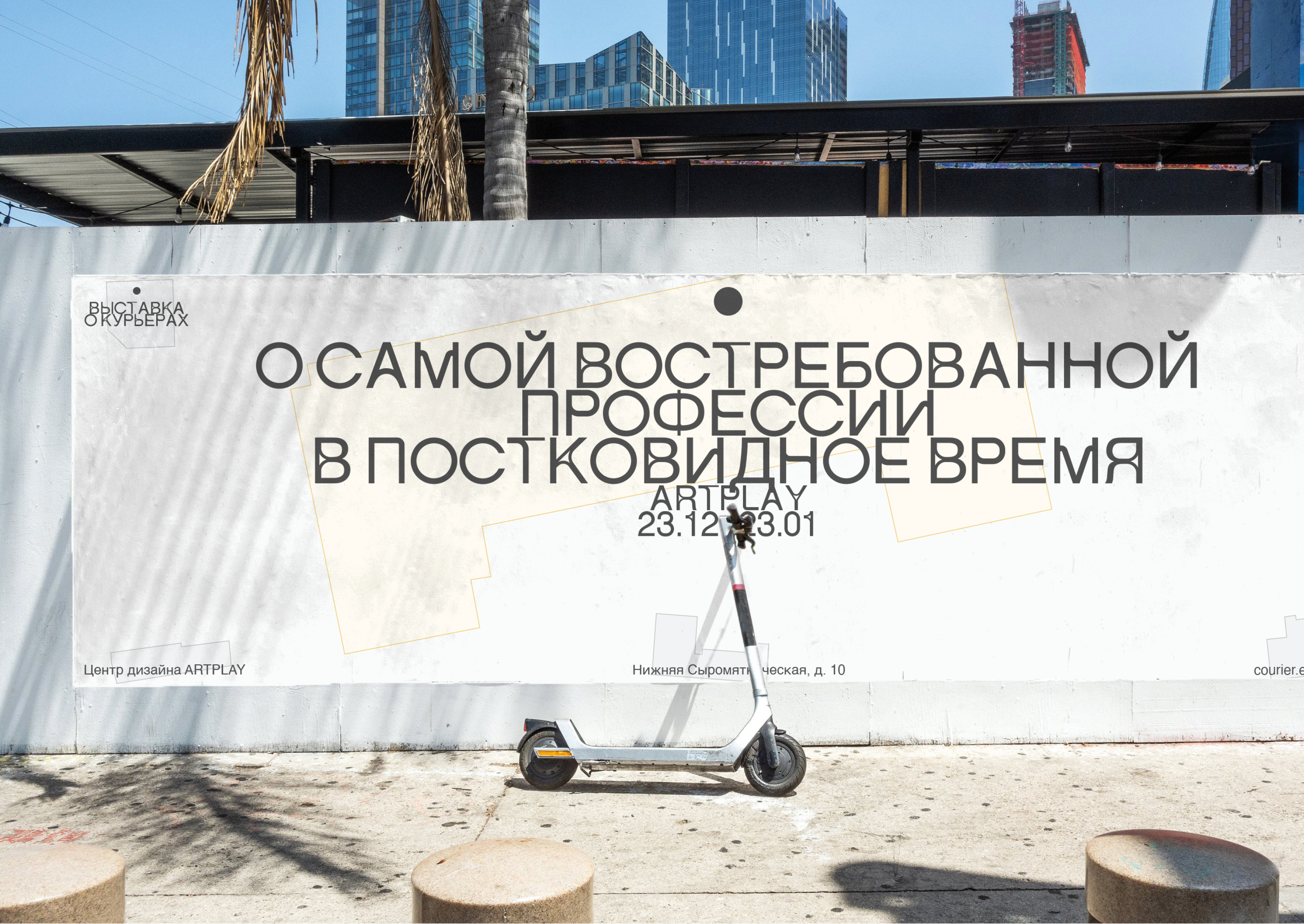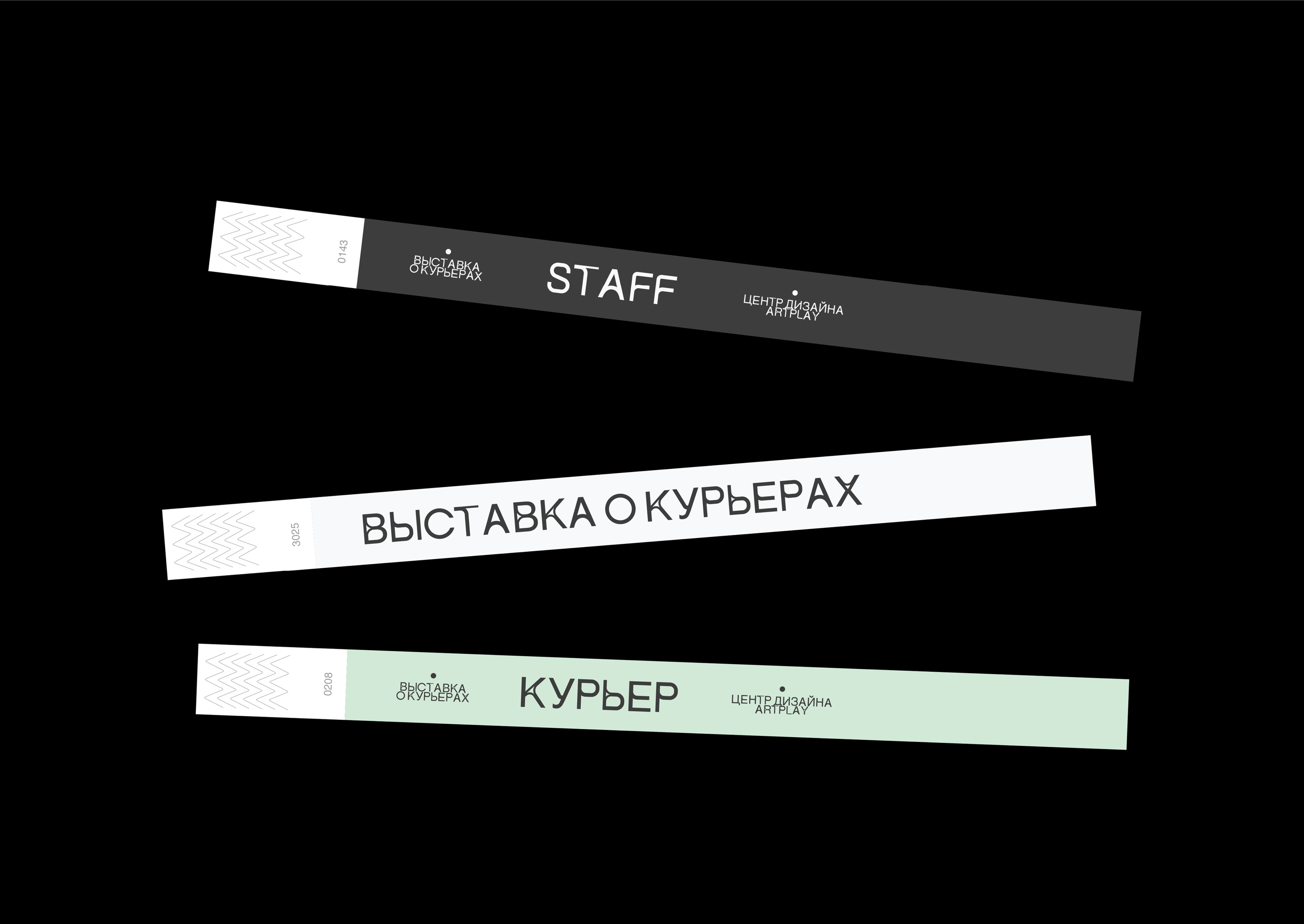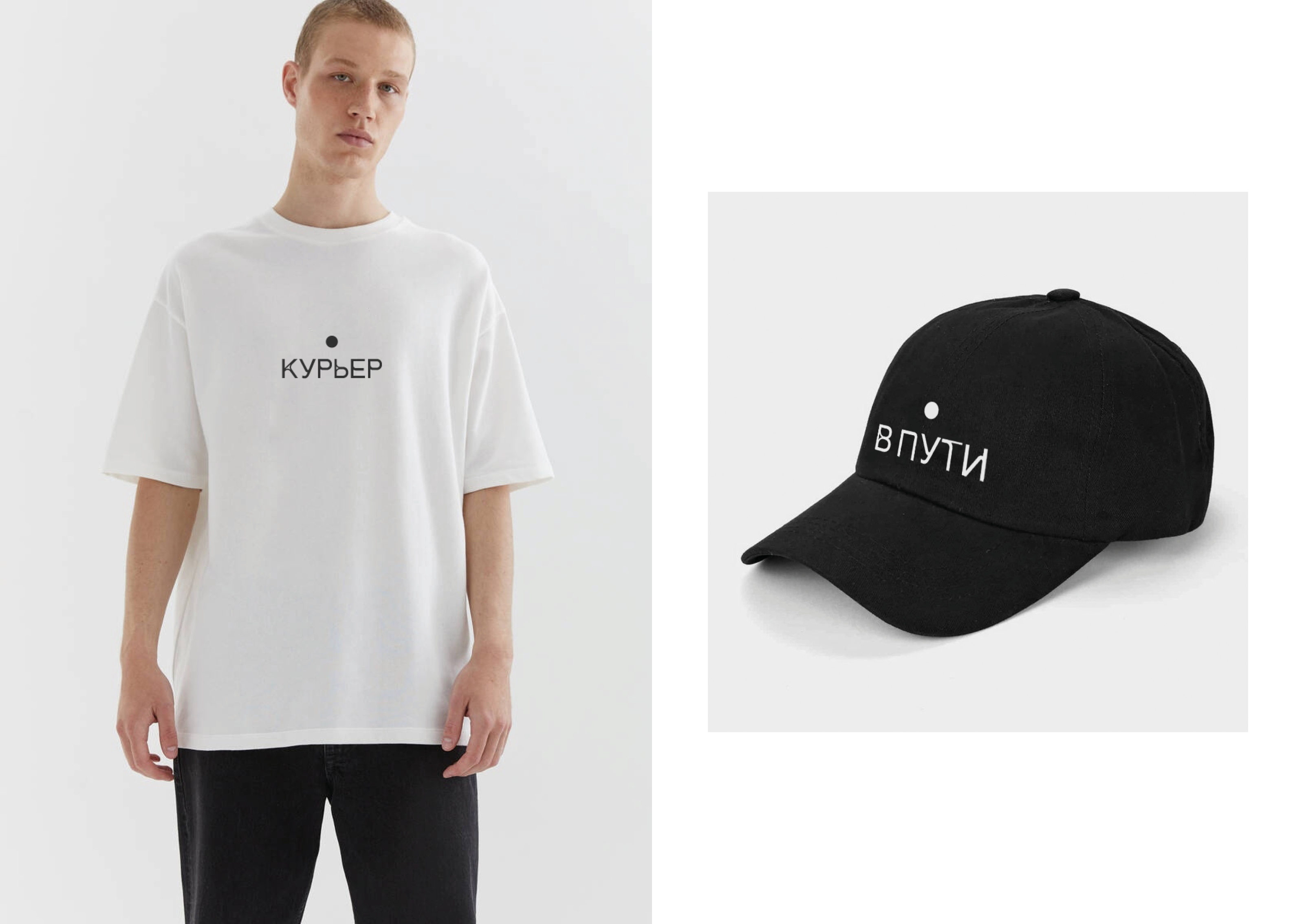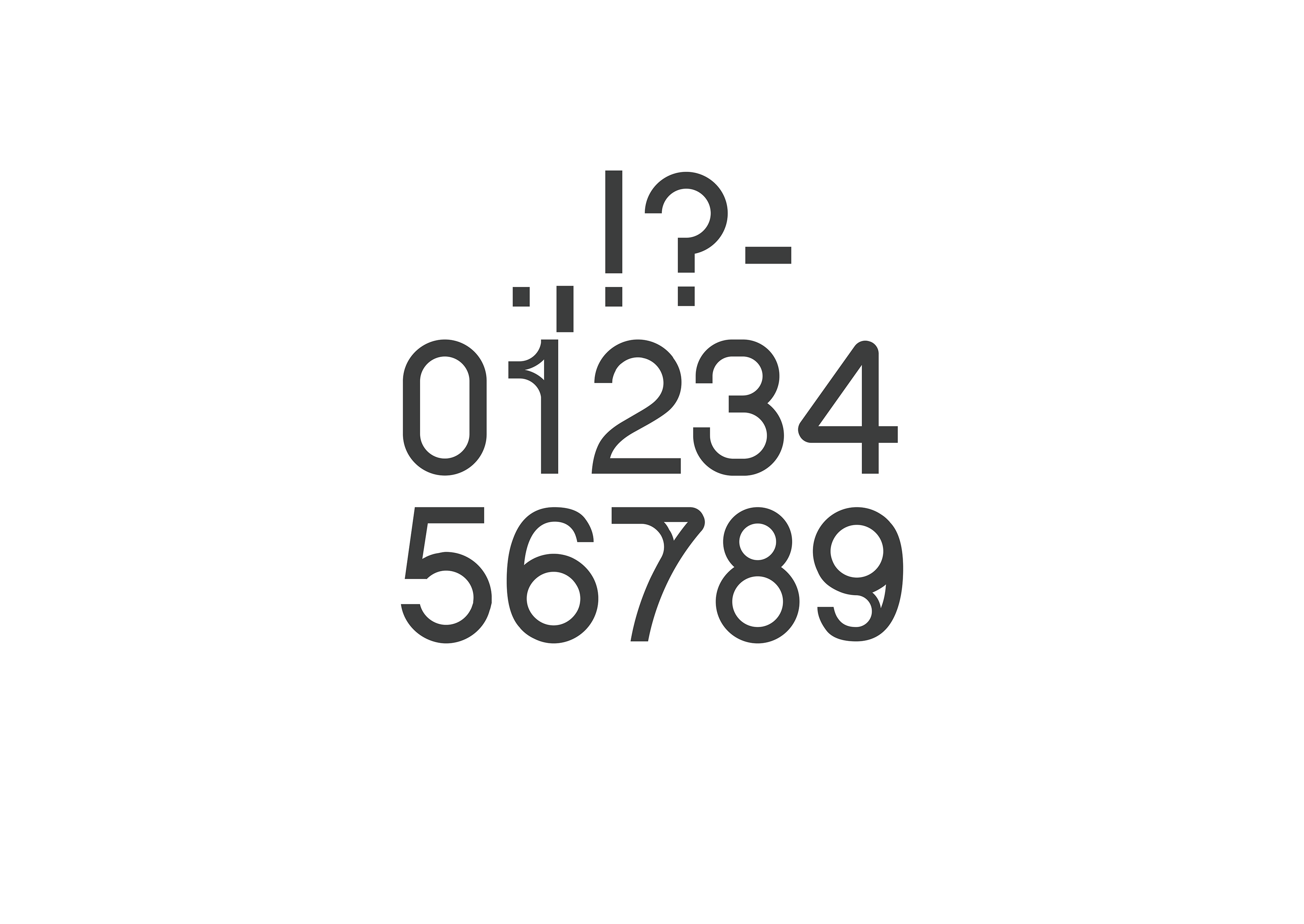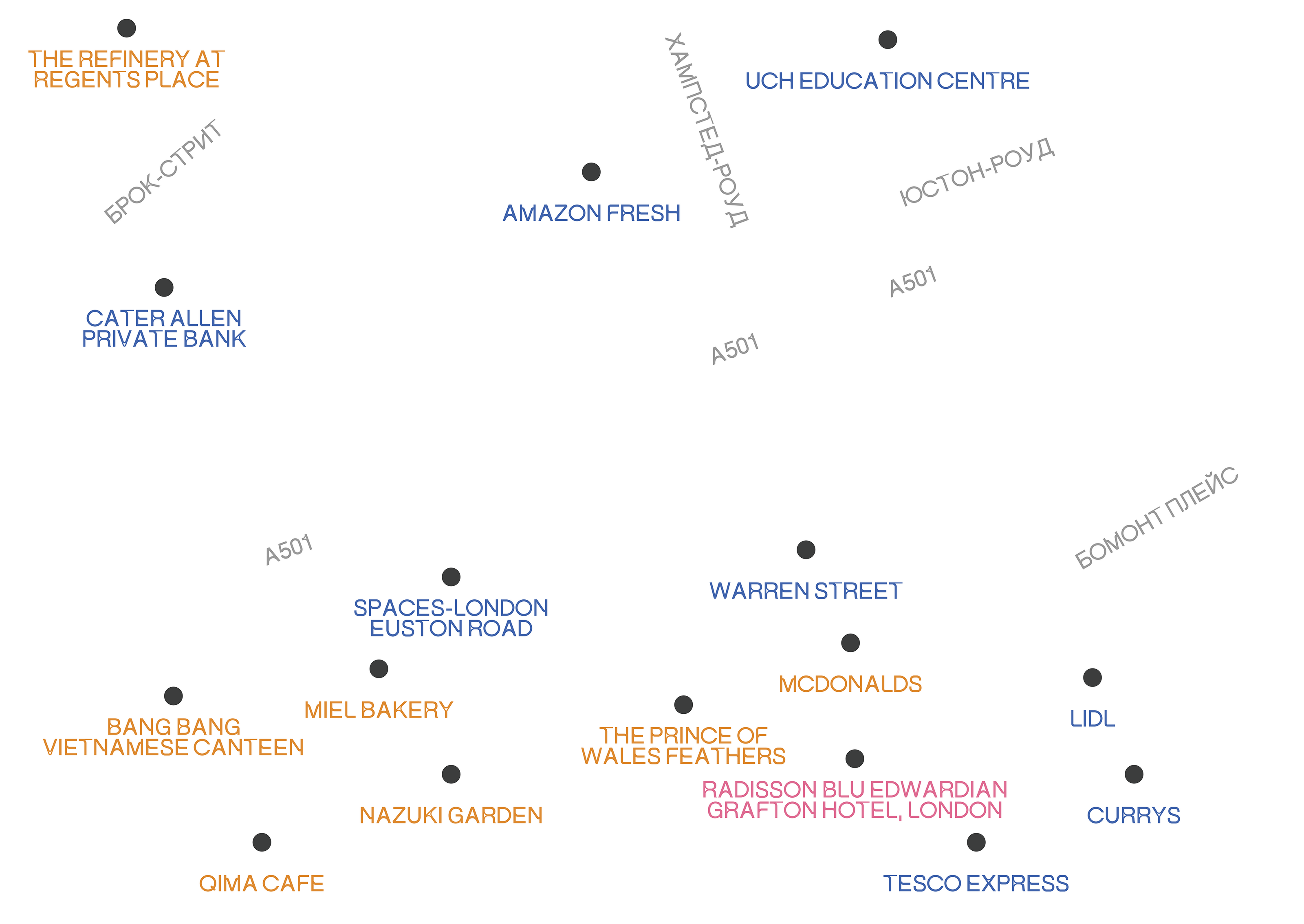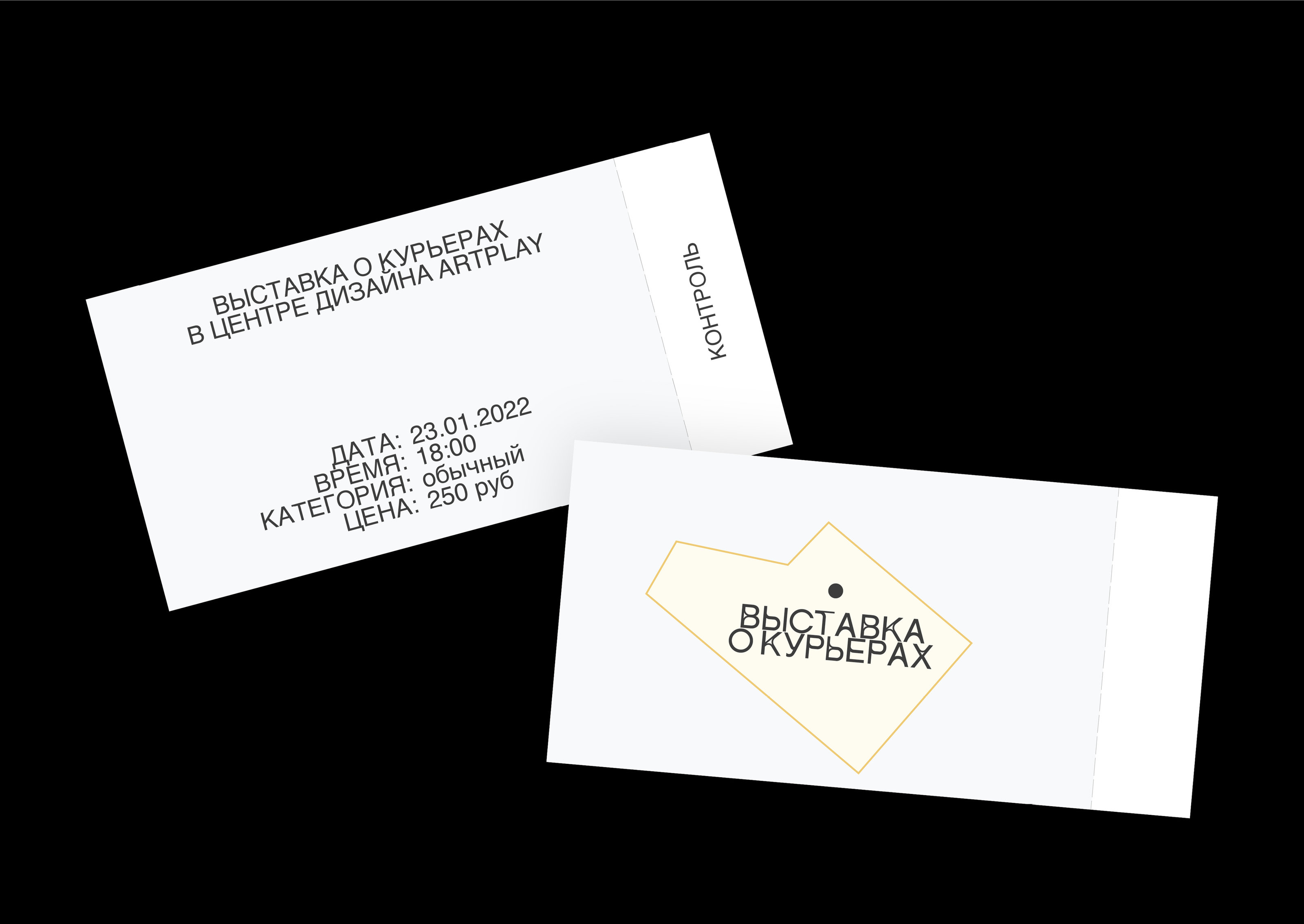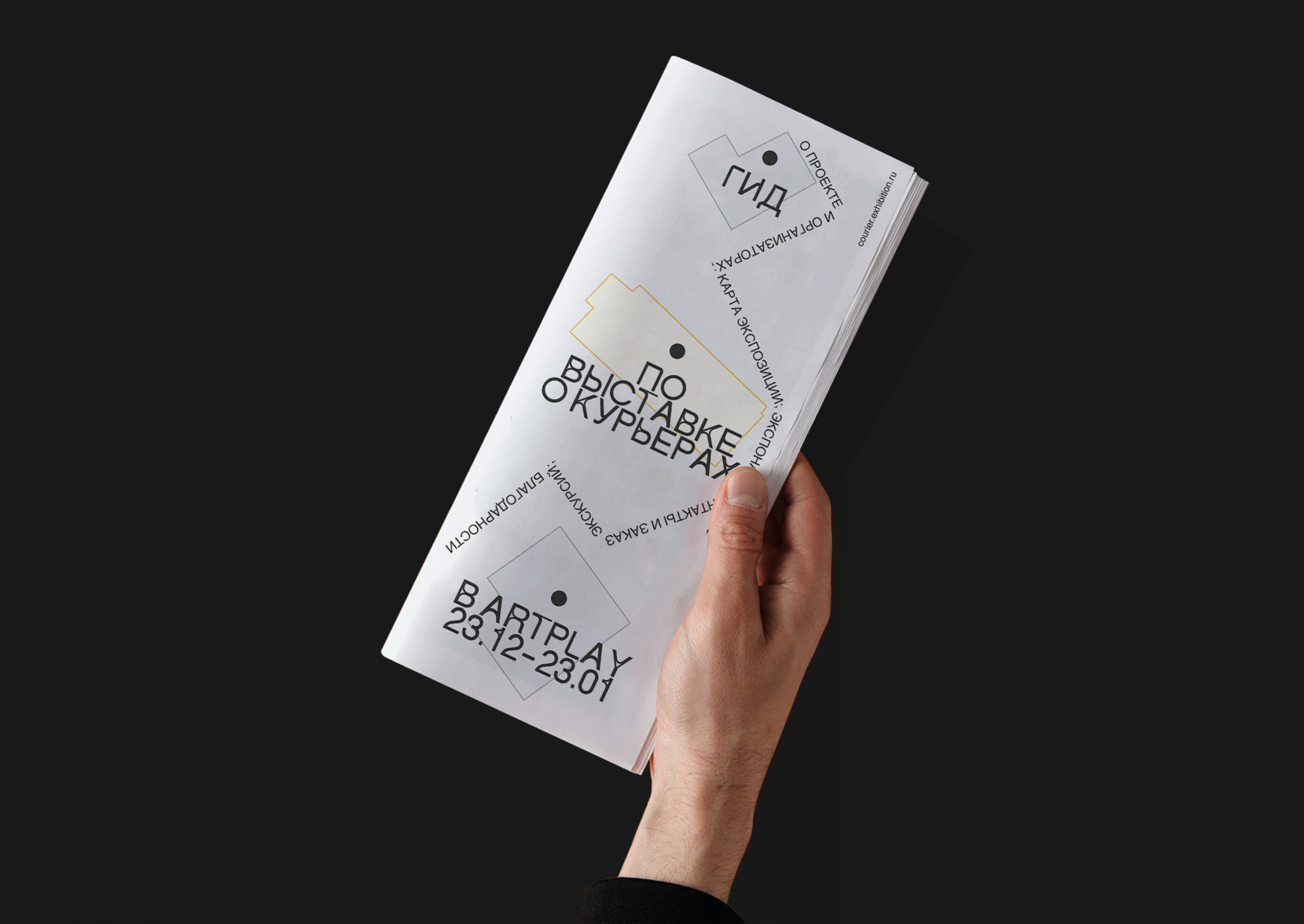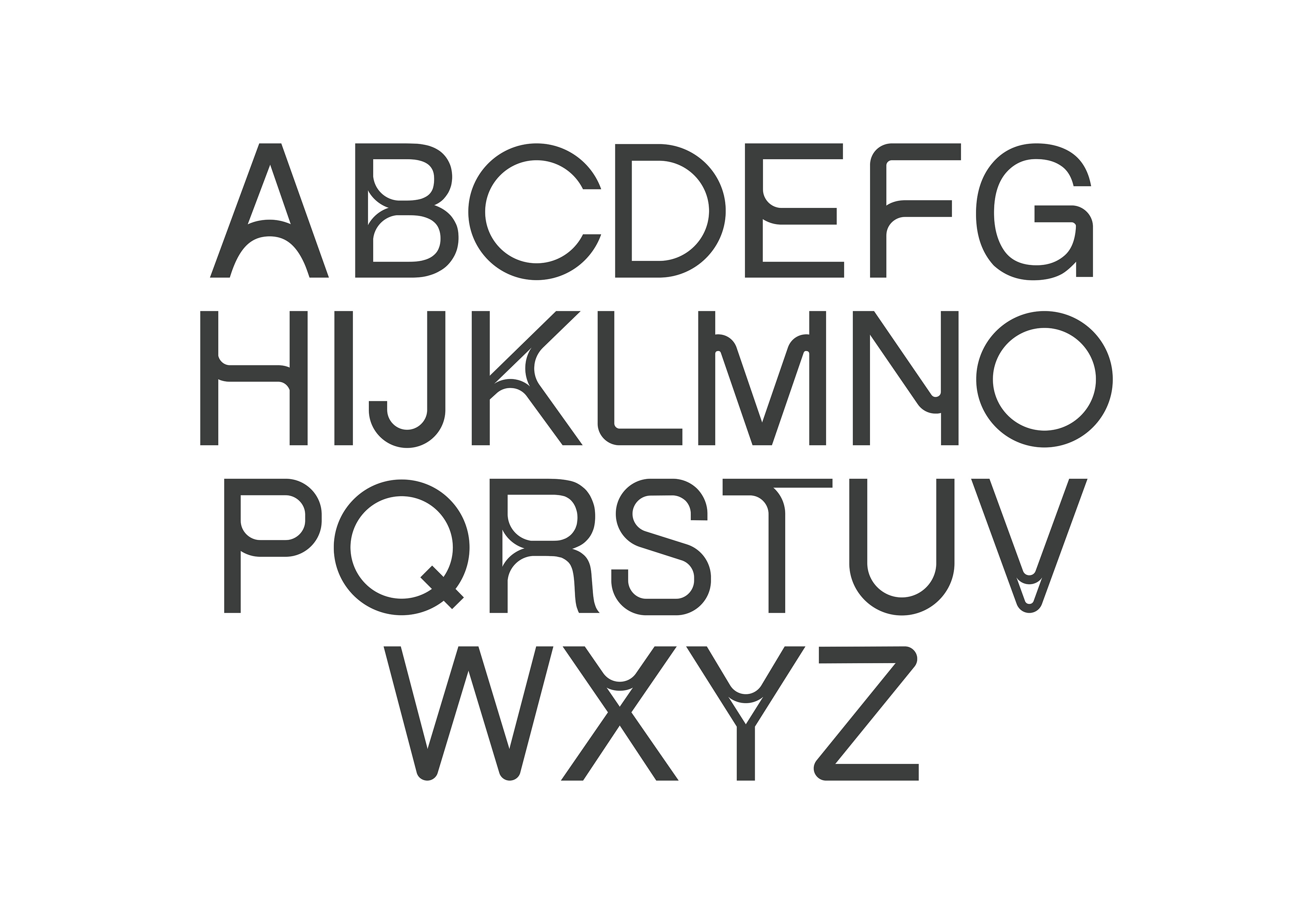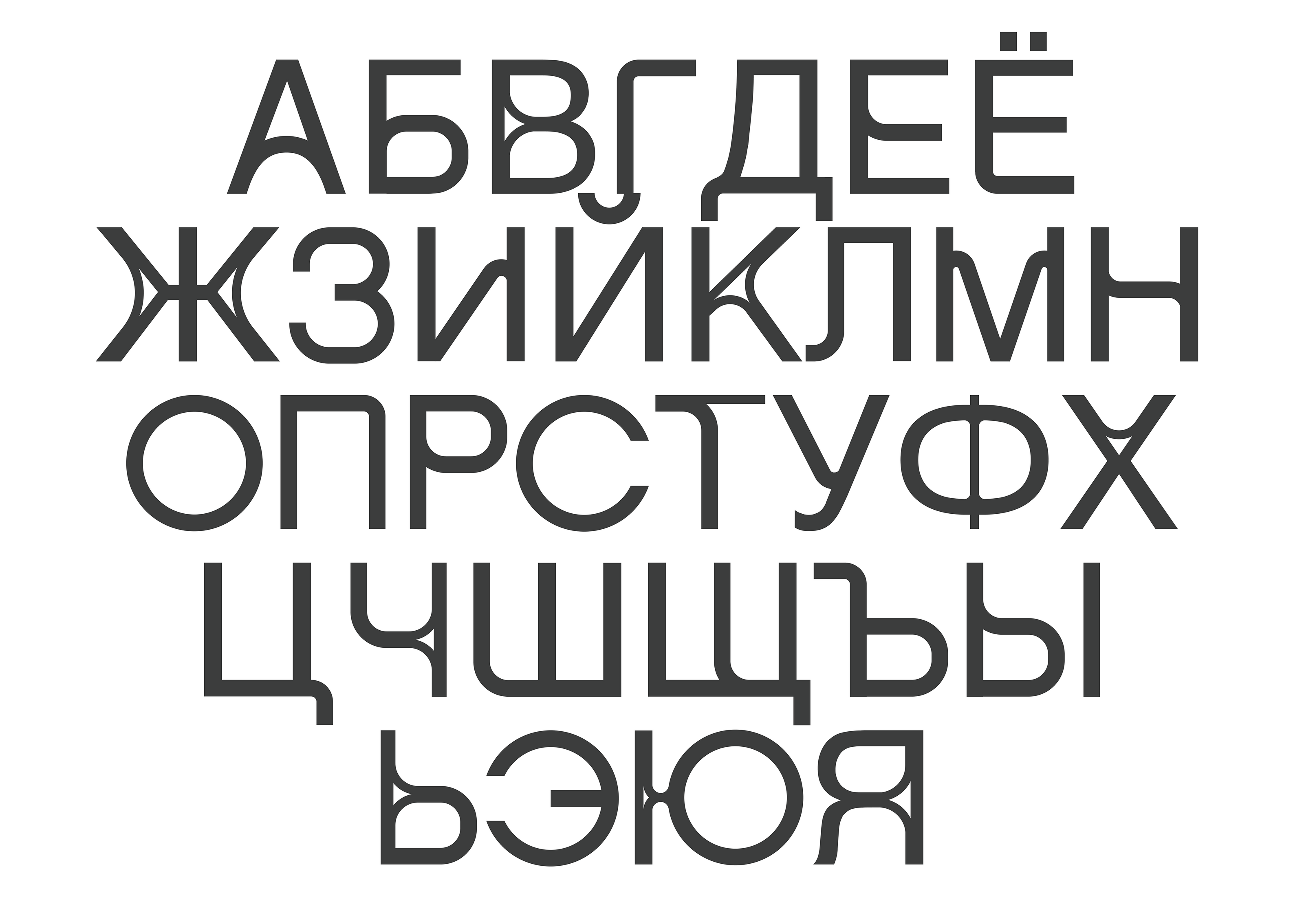
Route Typeface and Exhibition about couriers
Every day, couriers overcome many obstacles on the way to the customer, risking their health. The roads in the cities are full of twists, turns and intersections — all of them were implemented into Route Typeface
Route Typeface was designed as a part of identity for Exhibition about couriers